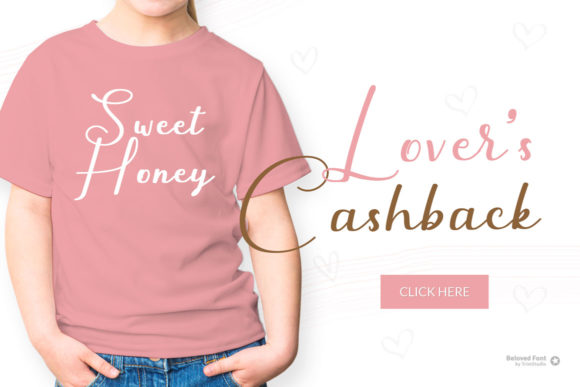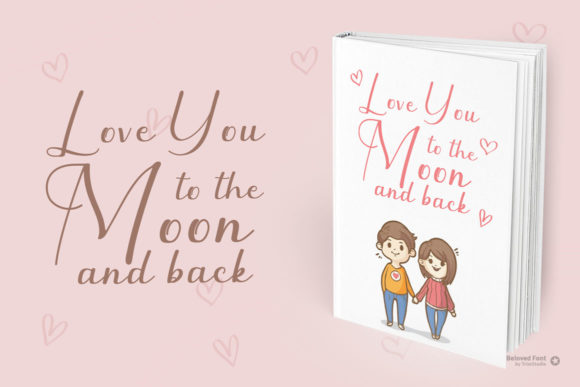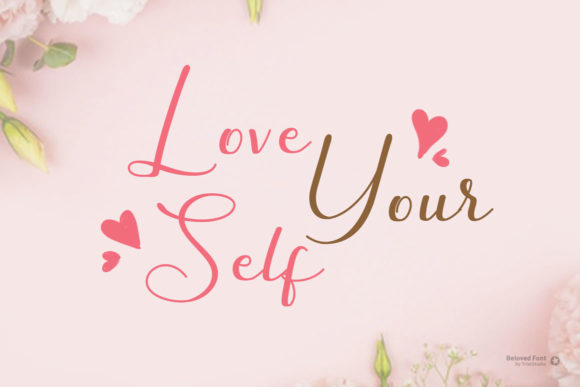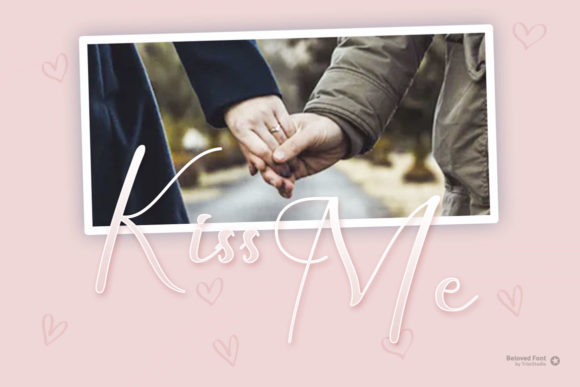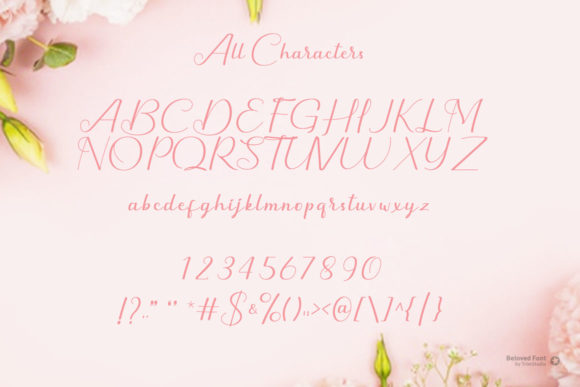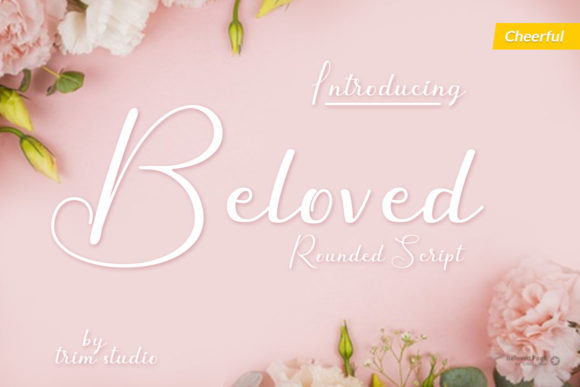
Discover the Charm of Beloved Font: A Playful and Friendly Typeface
Are you tired of using the same old fonts in your designs? Look no further than Beloved Font, a delightful and charming typeface that’s sure to capture your heart. With its playful look and feel, Beloved Font is perfect for designers and crafters who want to add a touch of whimsy and personality to their work.
What Makes Beloved Font So Special?
Beloved Font is a unique and friendly typeface that’s designed to bring a smile to your face. Its playful and cute design makes it perfect for a wide range of projects, from children’s books and educational materials to branding and advertising campaigns. The font’s charming and approachable feel also makes it ideal for use in digital and print materials, such as social media graphics, posters, and flyers.
Key Features of Beloved Font
- Playful and Cute Design: Beloved Font features a playful and cute design that’s sure to delight audiences of all ages.
- Unique Character Set: The font includes a unique character set with a range of letters, numbers, and punctuation marks.
- Easy to Read: Despite its playful design, Beloved Font is easy to read and understand, making it perfect for use in body text and headlines.
- Highly Versatile: Beloved Font is highly versatile and can be used in a wide range of projects, from digital and print materials to branding and advertising campaigns.
Why Designers and Crafters Love Beloved Font
Designers and crafters love Beloved Font for its unique and charming design. The font’s playful look and feel make it perfect for use in projects that require a touch of personality and whimsy. Additionally, the font’s ease of use and versatility make it a favorite among designers and crafters who want to create professional-looking projects quickly and easily.
How to Use Beloved Font in Your Designs
Tips and Tricks for Getting the Most Out of Beloved Font
- Experiment with Different Sizes and Colors: Beloved Font looks great in a range of sizes and colors. Experiment with different sizes and colors to find the perfect look for your project.
- Pair with Other Fonts: Beloved Font pairs well with other fonts. Try pairing it with a bold and modern font for a striking contrast.
- Use in Combination with Images: Beloved Font looks great in combination with images. Try using it in combination with illustrations or photographs to create a visually appealing design.
In conclusion, Beloved Font is a friendly and cute font that’s perfect for designers and crafters who want to add a touch of personality and whimsy to their work. With its playful look and feel, unique character set, and ease of use, Beloved Font is sure to become a favorite among designers and crafters. So why not give it a try and see for yourself why Beloved Font is the perfect choice for your next project?
Beloved Font: The Perfect Choice for Your Next Project
Whether you’re a designer, crafter, or DIY enthusiast, Beloved Font is the perfect choice for your next project. With its playful look and feel, unique character set, and ease of use, Beloved Font is sure to bring a touch of personality and whimsy to your work. So why not give it a try and see for yourself why Beloved Font is the perfect choice for designers and crafters of all levels?